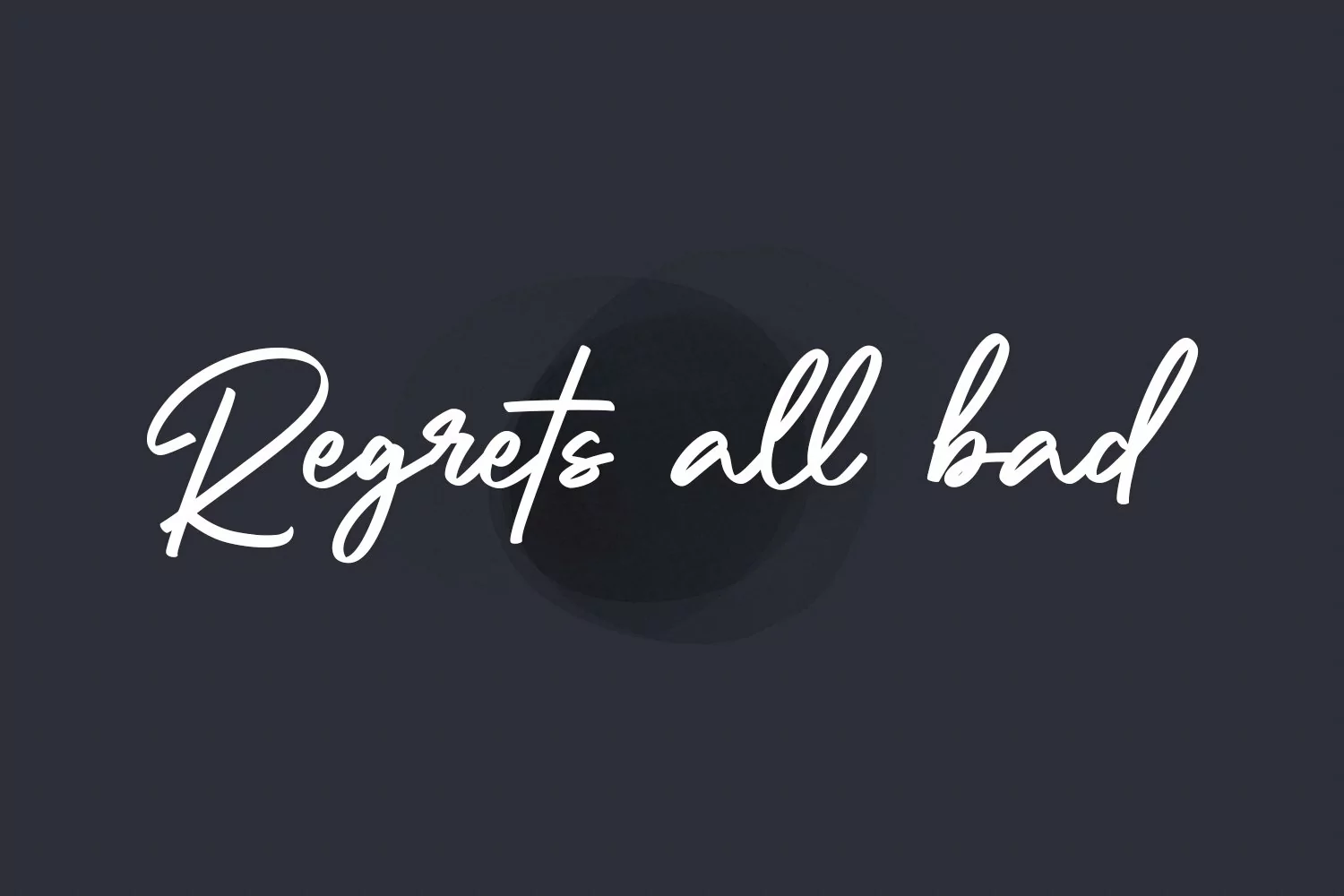
Twicelights is a signature script font. With regular felt-tip stroke, fun character with a bit of ligatures, alternates and swashes. To give you an extra creative work. Twicelights font support multilingual more than 100+ language. This font is good for logo design, Social media, Movie Titles, Books Titles, a short text even a long text letter and good for your secondary text font with sans or serif. Make a stunning work with Twicelights font.